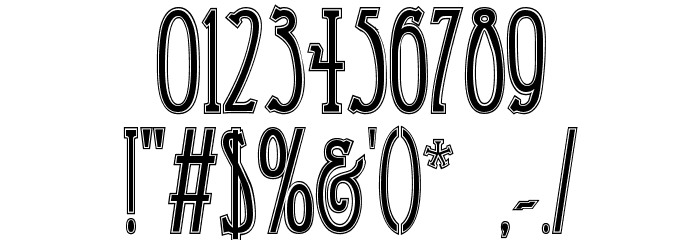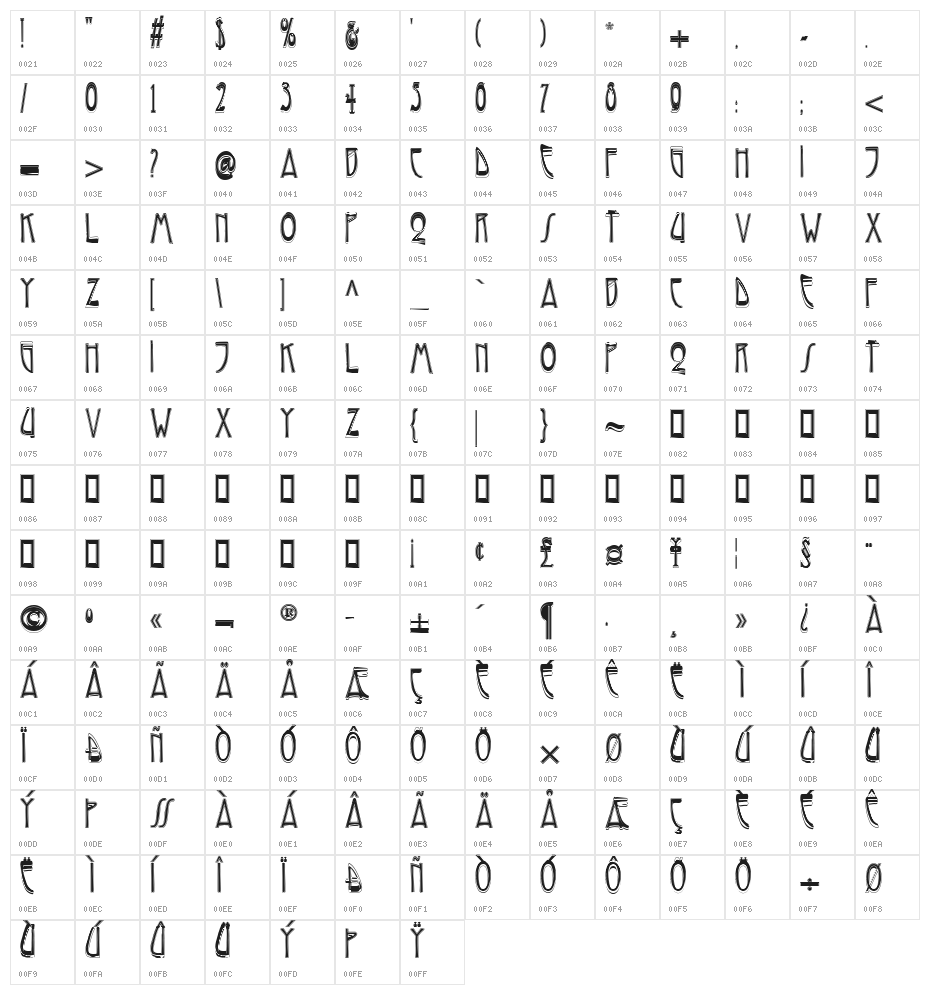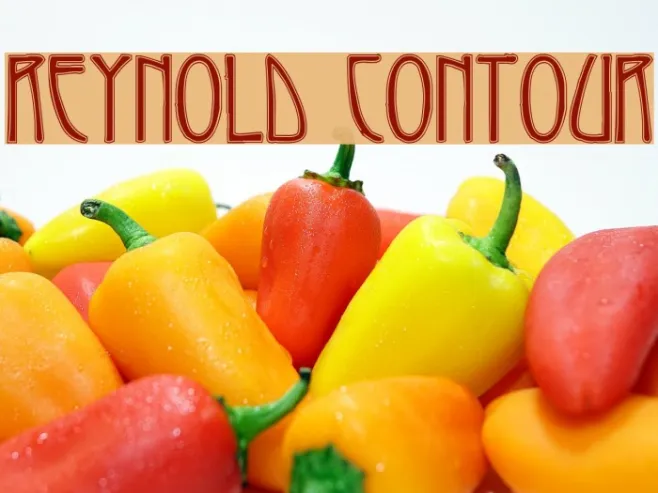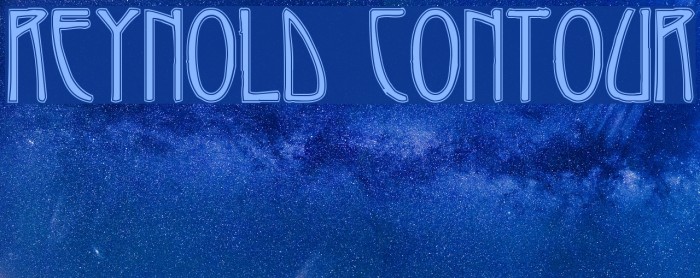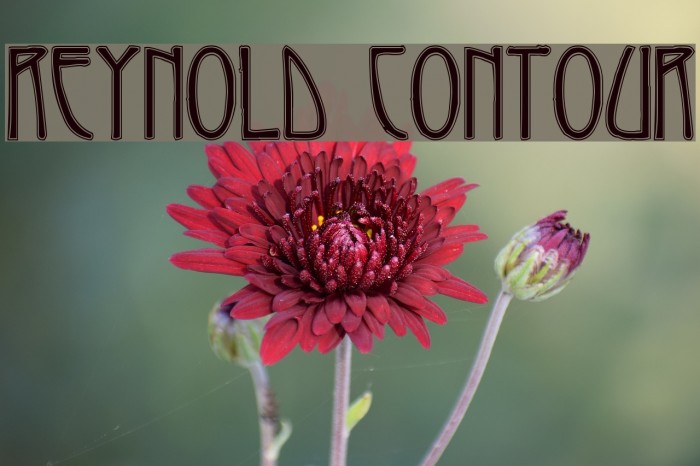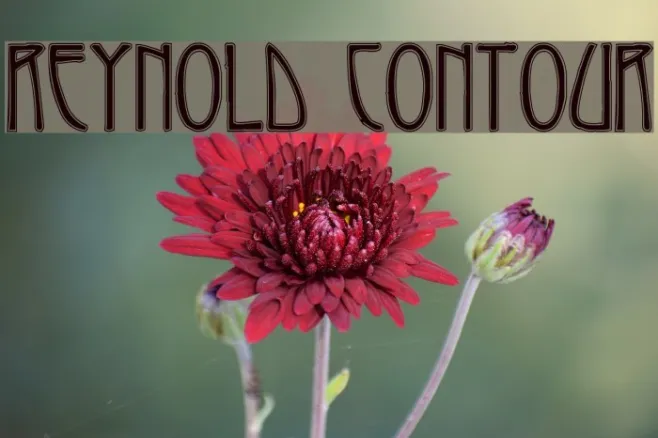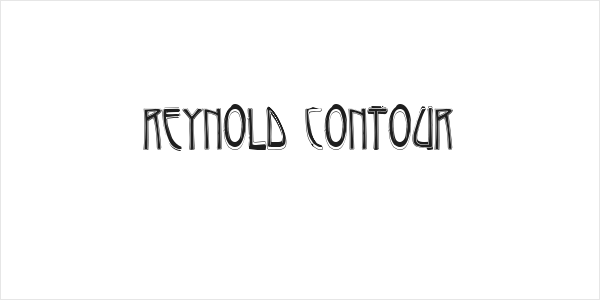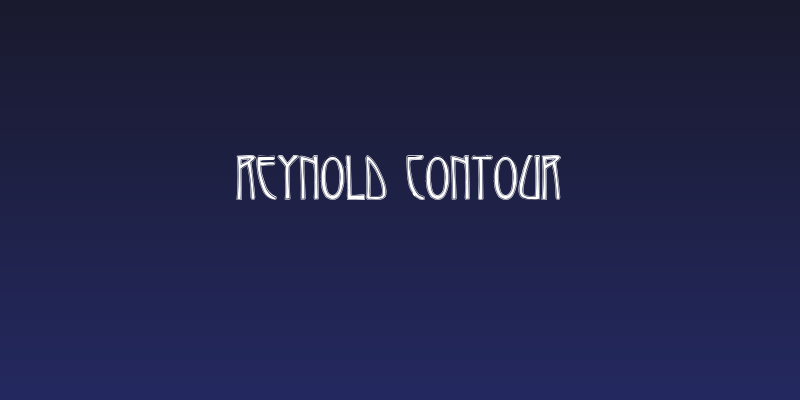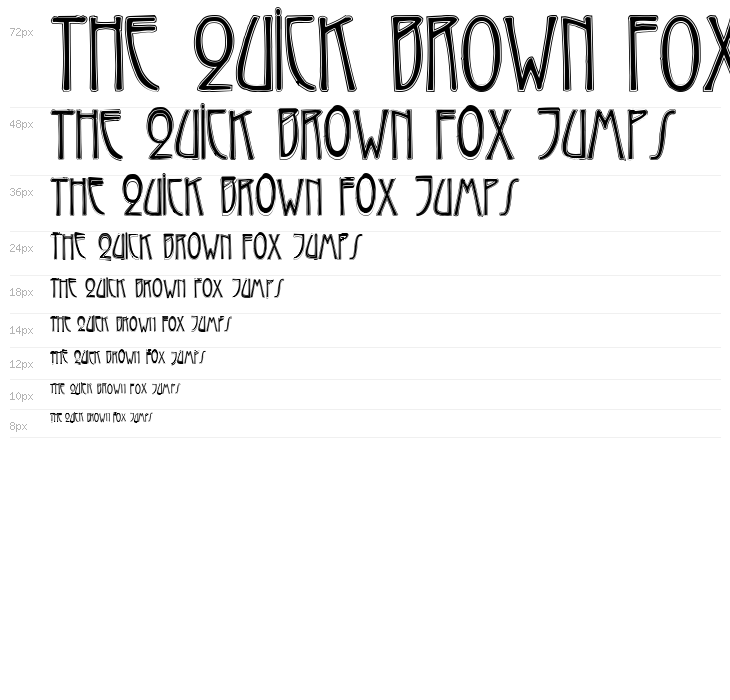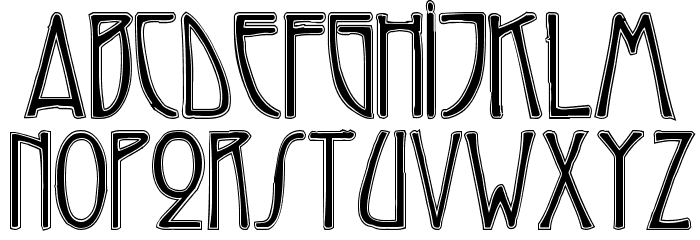
Reynold Contour Font
Reynold Contour Description
This font features a unique contour design with a modern and artistic flair. The letters are outlined, creating a hollow effect that gives each character a distinct presence. The uppercase and lowercase letters share a consistent style, with elongated forms and sharp angles that add a sense of elegance and sophistication. The numbers and special characters maintain this aesthetic, ensuring a cohesive look across all elements. The font's design is both eye-catching and versatile, making it suitable for a variety of creative applications. Its bold outline and geometric shapes make it ideal for projects that require a strong visual impact.